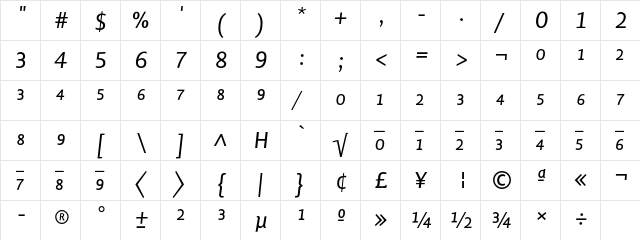
Lisboa Expert Italic
Design Context for Lisboa Expert Typeface
Lisboa Expert takes a measured approach to typography — its balanced proportions and neutral character make it a reliable workhorse for both digital and print work. The slanted form adds forward momentum and visual energy.
Pro Tip: Use Lisboa Expert for emphasis, pull quotes, and subheadings where its slanted energy can add rhythm to the layout.